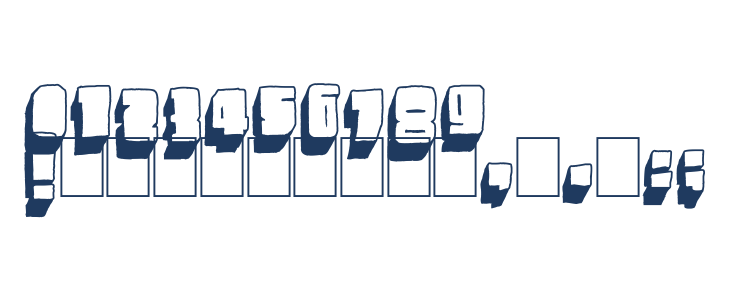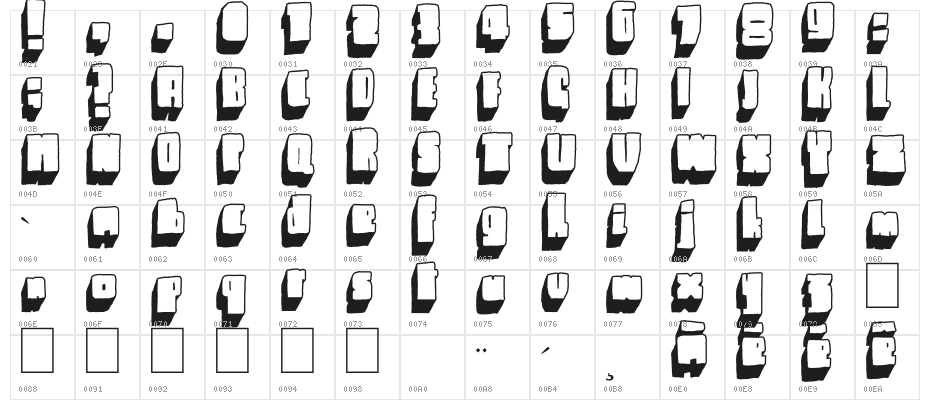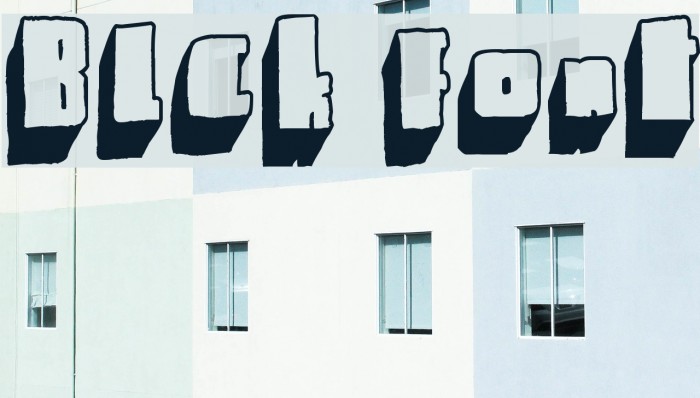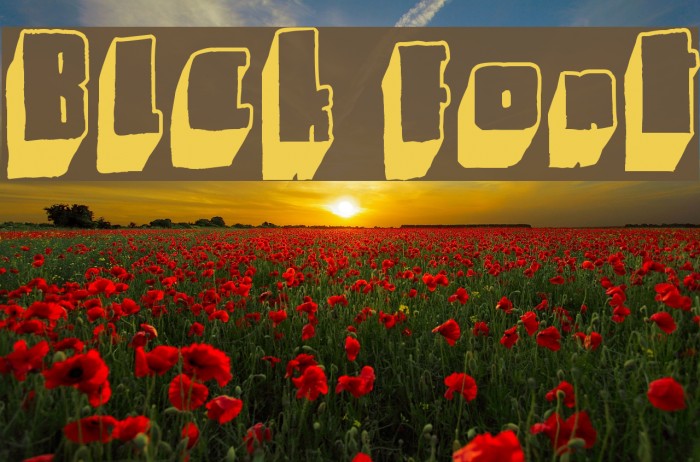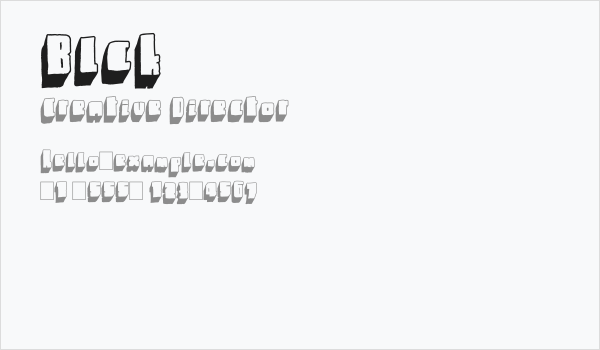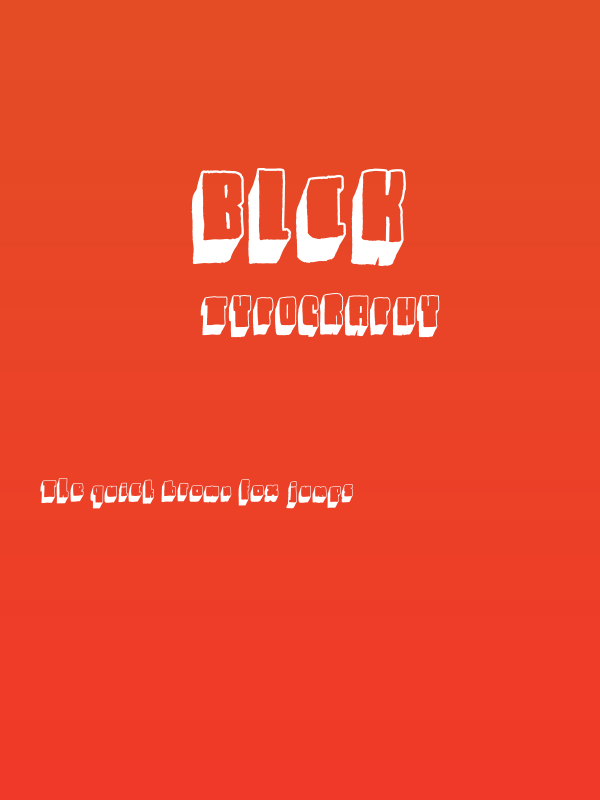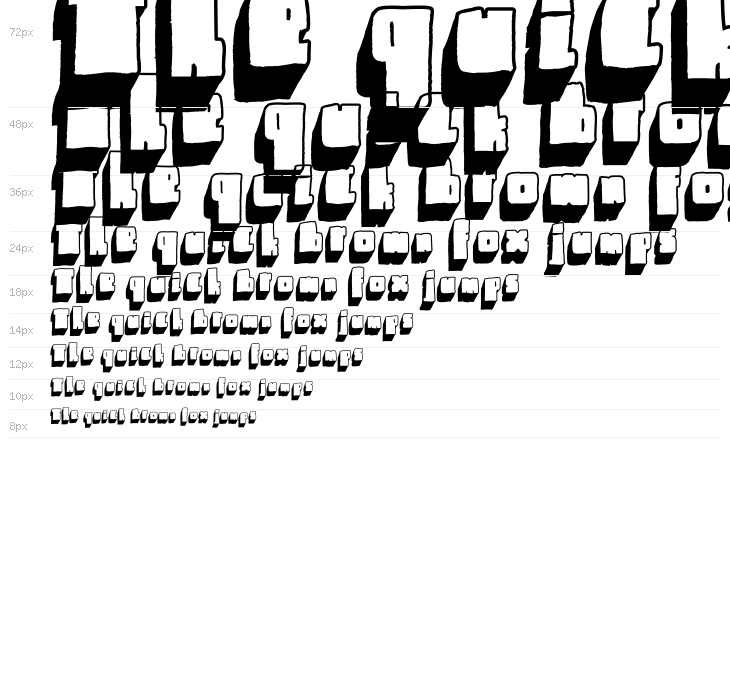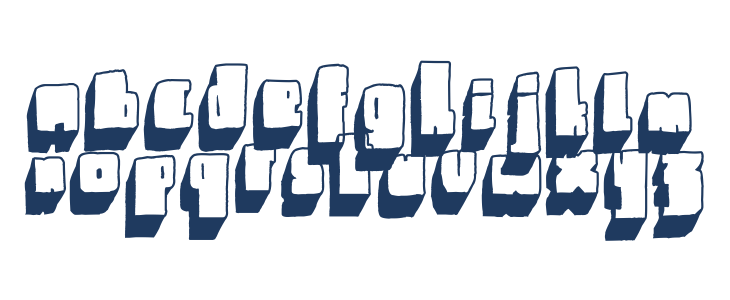
Blck Font
Blck Description
This font features a bold, three-dimensional design with a shadow effect that gives it a striking and impactful appearance. The characters are blocky and robust, with a playful yet assertive style. The uppercase and lowercase letters maintain a consistent thickness, contributing to a cohesive look. The numbers and special characters follow the same design principles, ensuring uniformity across all elements. This font's unique shadowing adds depth, making it ideal for eye-catching designs.
| Proposed Projects | Ideal for poster designs, logos, headlines, and any project requiring a bold, attention-grabbing typeface. |